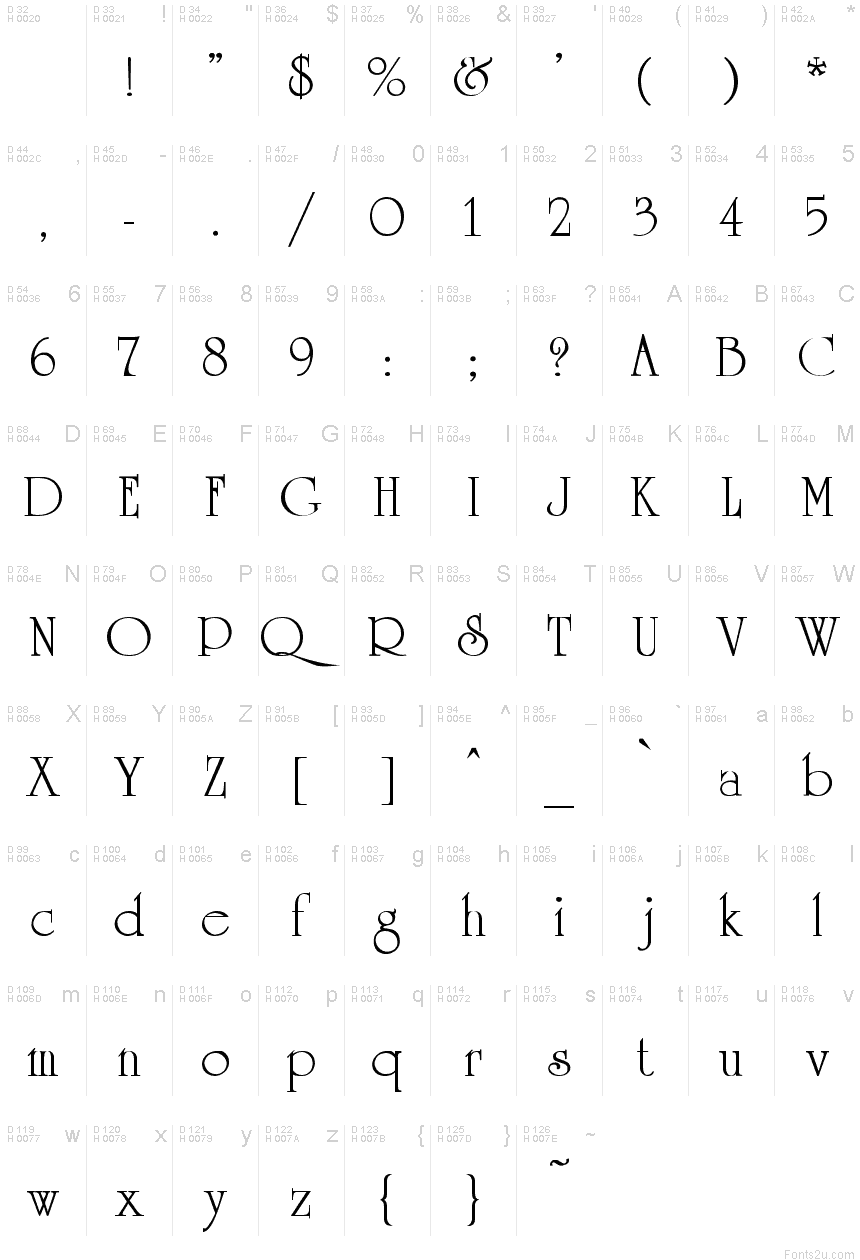
VI University
VI University, a free retro collegiate display font from VISCII donation by Bum, leans into an old-school academic mood with sharp high-contrast serifs and a poised, bookish rhythm. The letters feel formal but not stiff - tall strokes, crisp joins, and the gentle contrast between broad capitals and more delicate lowercase give it the air of a university seal translated into headline type.
It fits naturally in campus branding, event posters, editorial cover lines, certificate titles, and museum or history-themed title cards, where a free font with this kind of scholarly flavor can carry a lot with just a few words. Use it when you want headings, monograms, or short pull quotes to suggest tradition without drifting into heavy blackletter.